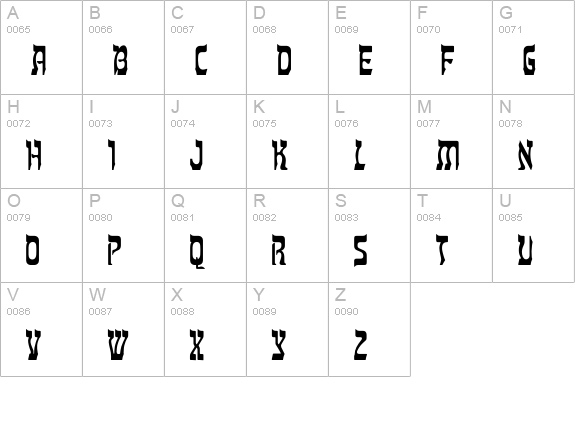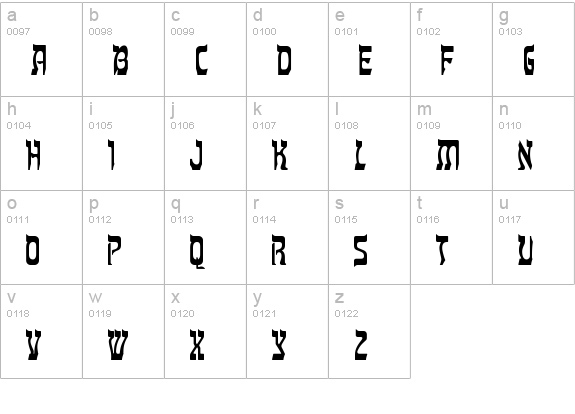
Rasputin Font Details
Introducing Rasputin, a mesmerizing and enigmatic font that captures the essence of mystery and intrigue. With its bold and striking letterforms, Rasputin demands attention and leaves a lasting impression. This unique typeface is perfect for creating captivating headlines, eye-catching titles, and stunning branding materials. Rasputin's distinctive design draws inspiration from the enigmatic figure it is named after, evoking a sense of power and charisma. Its carefully crafted letterforms exude confidence and evoke a sense of timelessness. Whether used for print or digital projects, Rasputin effortlessly adds a touch of sophistication and allure. One of the most remarkable features of Rasputin is that it is available for free download at FontsMarket.com. This means that you can easily add this exceptional font to your collection without any cost or hassle. FontsMarket.com offers a vast library of fonts, providing designers and enthusiasts with access to high-quality typefaces that can elevate their creative projects. By choosing Rasputin, you are not only obtaining a visually stunning font but also embracing the freedom to create without any limitations. Whether you are designing a logo, a poster, or a website, Rasputin will help you make a bold statement and stand out from the crowd. With its sleek and stylish appearance, this font is a versatile tool that can enhance any design concept. Don't miss the opportunity to experience the allure and power of Rasputin font. Download it for free at FontsMarket.com and unlock a world of creative possibilities. Let Rasputin be your secret weapon as you embark on your next design adventure.